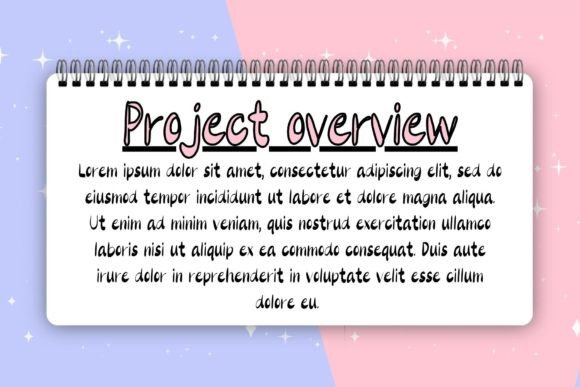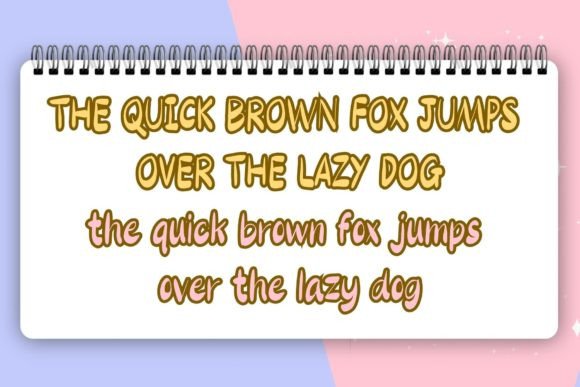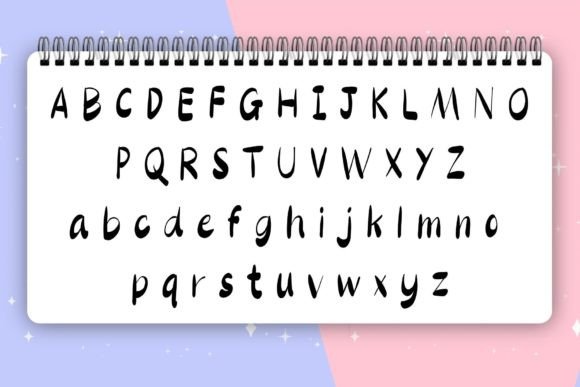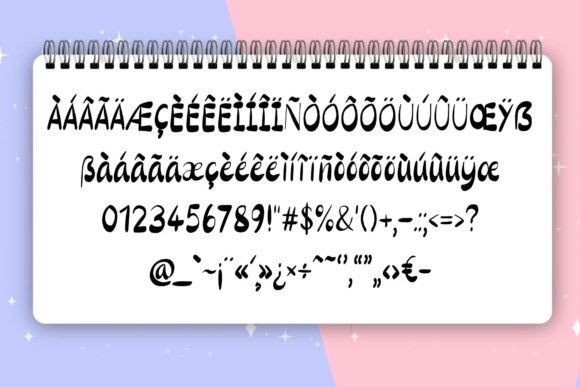
Aurora Font: Add a Touch of Whimsy to Your Designs
Aurora is a delightful, handwritten font that has been gaining popularity among designers and crafters alike. This playful sans-serif font is perfect for adding a touch of whimsy to your invites, cards, logos, and any other fun projects you’re working on. In this article, we’ll dive into the world of Aurora Font, exploring its features, uses, and benefits.
What is Aurora Font?
Aurora is a cute, handwritten font that exudes a sense of playfulness and friendliness. Its sans-serif design makes it versatile and easy to read, while its handwritten feel adds a personal touch to any design. The font’s unique characteristics, such as its rounded edges and varying letter sizes, give it a charming and approachable vibe.
Features of Aurora Font
Aurora Font boasts several features that make it a standout choice for designers and crafters:
- Playful and whimsical: Aurora’s handwritten design adds a touch of fun and playfulness to any project.
- Easy to read: Despite its handwritten feel, Aurora is surprisingly easy to read, making it perfect for body text and titles.
- Versatile: Aurora’s sans-serif design makes it suitable for a wide range of projects, from invitations and cards to logos and branding.
- Customizable: With its unique characteristics, Aurora can be easily customized to fit your design needs.
Uses of Aurora Font
Aurora Font is perfect for a variety of projects, including:
- Invitations and cards: Add a personal touch to your invitations and cards with Aurora’s playful design.
- Logos and branding: Use Aurora to create a unique and memorable logo for your business or brand.
- Social media graphics: Add a touch of whimsy to your social media graphics, such as Facebook posts and Instagram stories.
- Crafting projects: Use Aurora to add a personal touch to your crafting projects, such as scrapbooking and DIY signs.
Benefits of Using Aurora Font
Using Aurora Font in your designs offers several benefits:
- Unique and eye-catching: Aurora’s playful design will help your projects stand out from the crowd.
- Easy to use: Aurora’s clean and simple design makes it easy to use, even for those without extensive design experience.
- Time-saving: With Aurora, you can create professional-looking designs in no time, saving you time and effort.
Tips for Using Aurora Font
To get the most out of Aurora Font, follow these tips:
- Pair with other fonts: Combine Aurora with other fonts to create a unique and visually appealing design.
- Experiment with colors: Try out different colors and color combinations to add depth and interest to your design.
- Play with sizes: Experiment with different font sizes to create visual hierarchy and emphasis.
- Keep it simple: Don’t overcomplicate your design – keep it simple and let Aurora’s playful design shine.
Aurora Font is a versatile and playful font that’s perfect for designers and crafters looking to add a touch of whimsy to their projects. With its unique features, ease of use, and affordability, Aurora is an excellent choice for a wide range of designs. Whether you’re creating invitations, logos, or social media graphics, Aurora Font is sure to bring a smile to your audience’s faces.